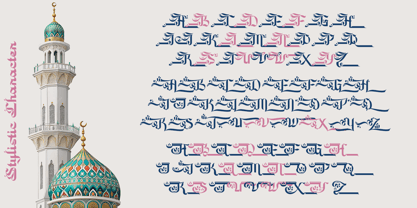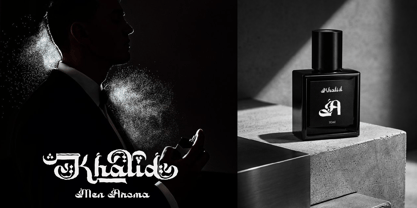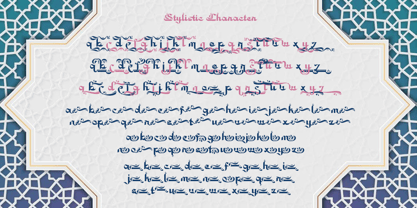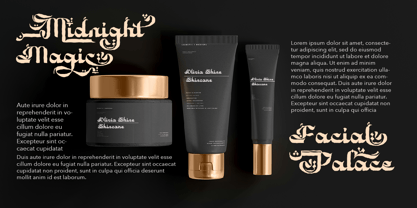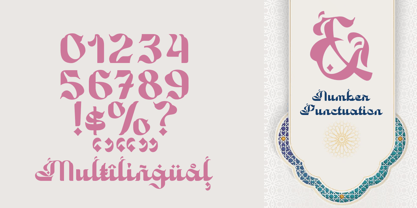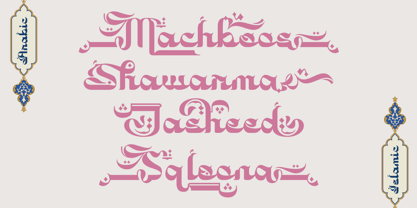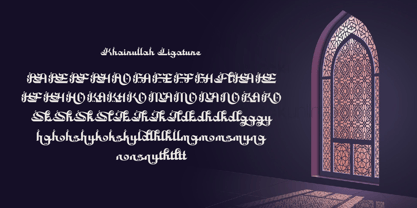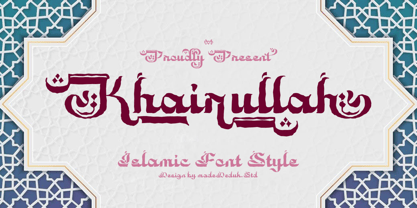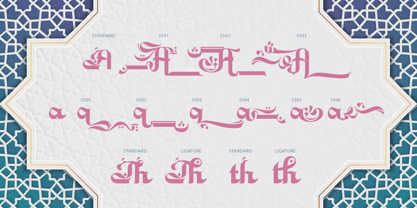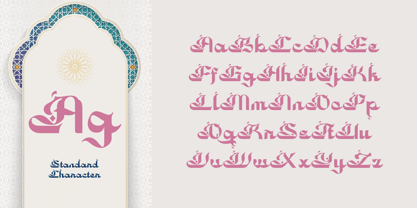
Khairullah
by madeDeduk
Introducing Khairullah, the font displays a strong typographic style with a distinctive touch of elegant and artistic Arabic calligraphy. Its letterforms are filled with smooth curves, contrasting thick and thin strokes, and ornamental details such as dots and decorative accents inspired by Arabic script. The elongated letter tails and flowing connections between characters create a dynamic impression, resembling the fluidity of traditional handwritten calligraphy. Furthermore, this font has an ornamental character while still maintaining readability. The structure of the Latin letters is harmoniously combined with Arabic nuances, resulting in a unique and refined visual identity. This font is highly suitable for Islamic-themed designs such as logos, poster titles, product branding, and other creative works that aim to convey an exotic, traditional, yet artistic feel within a modern presentation.